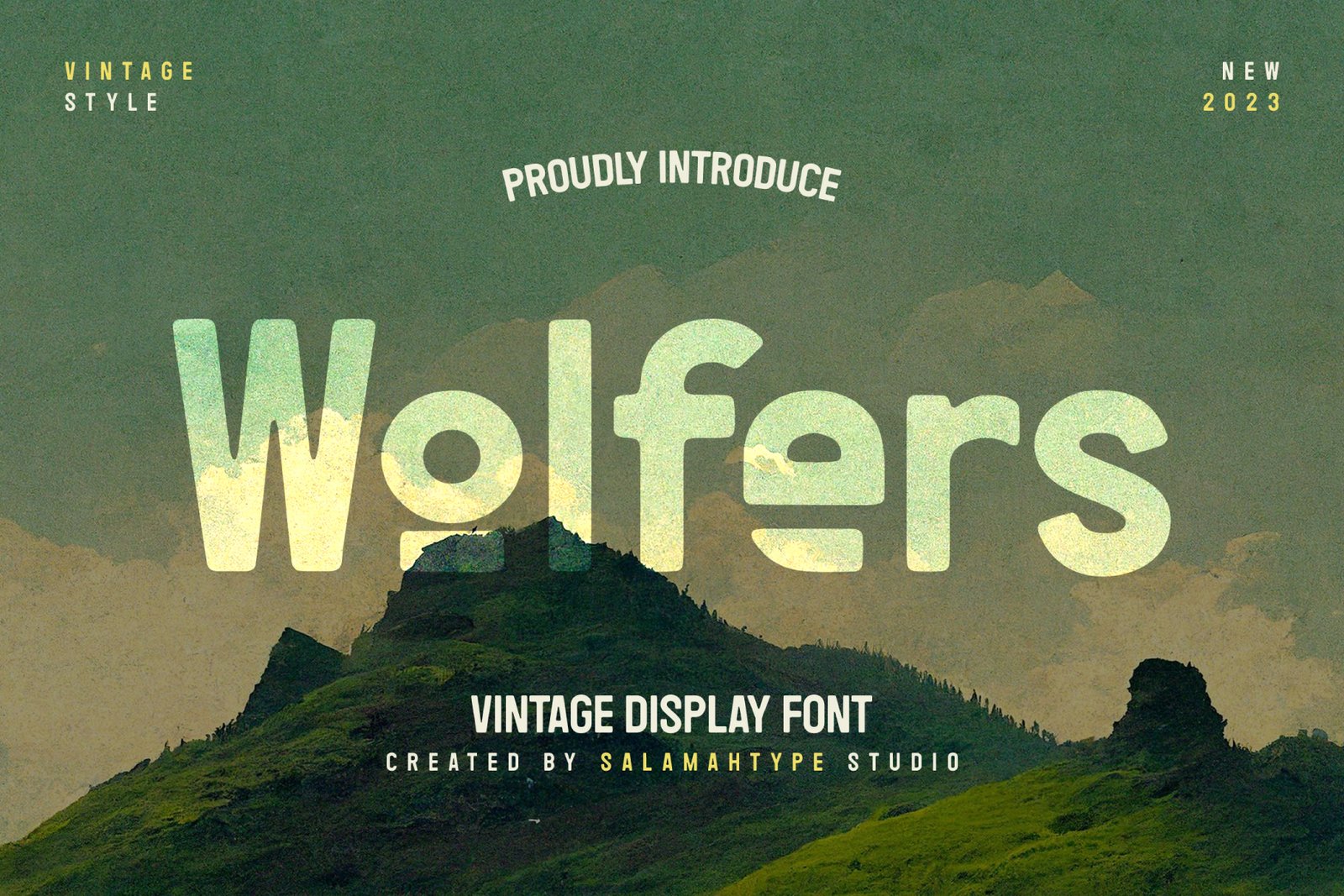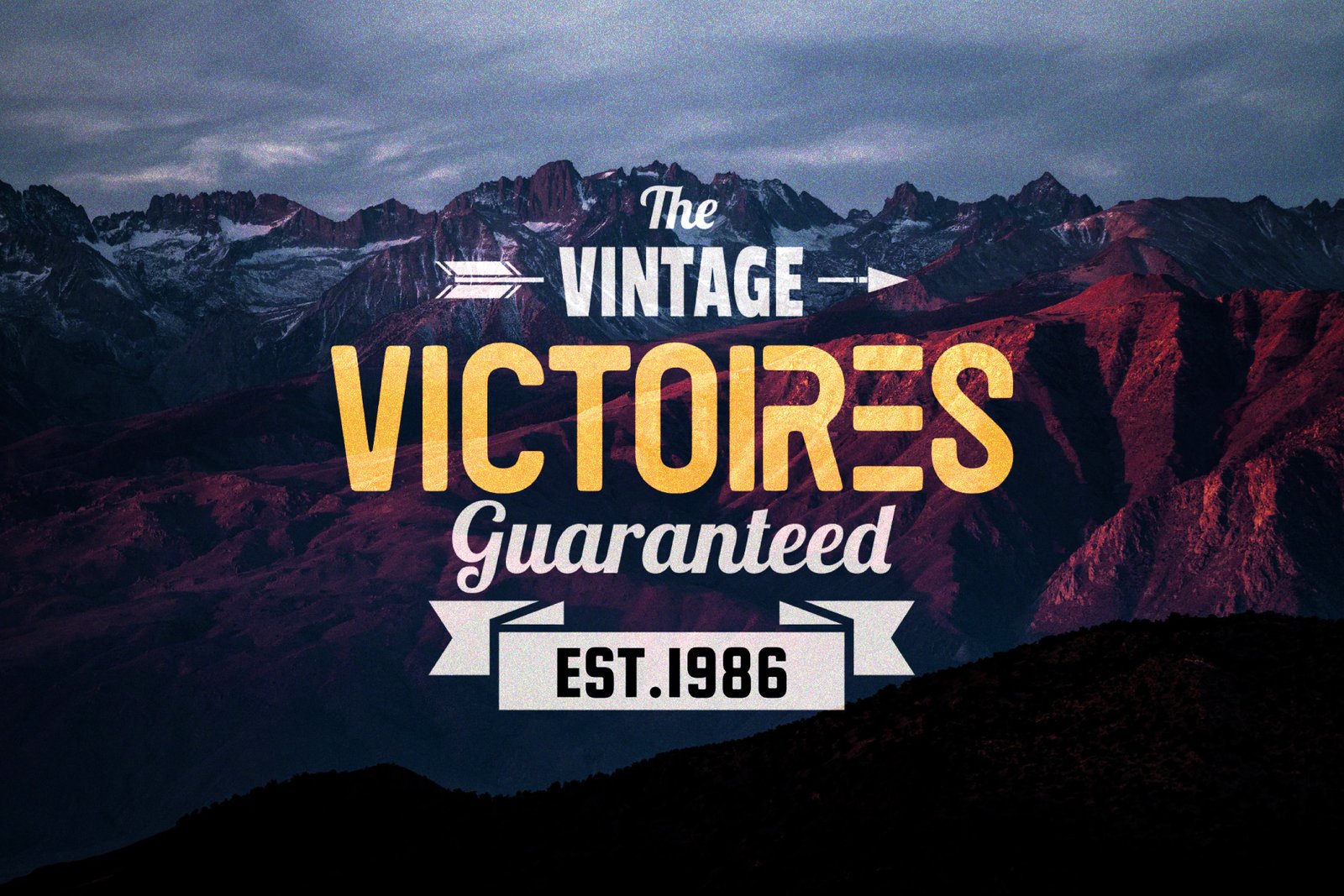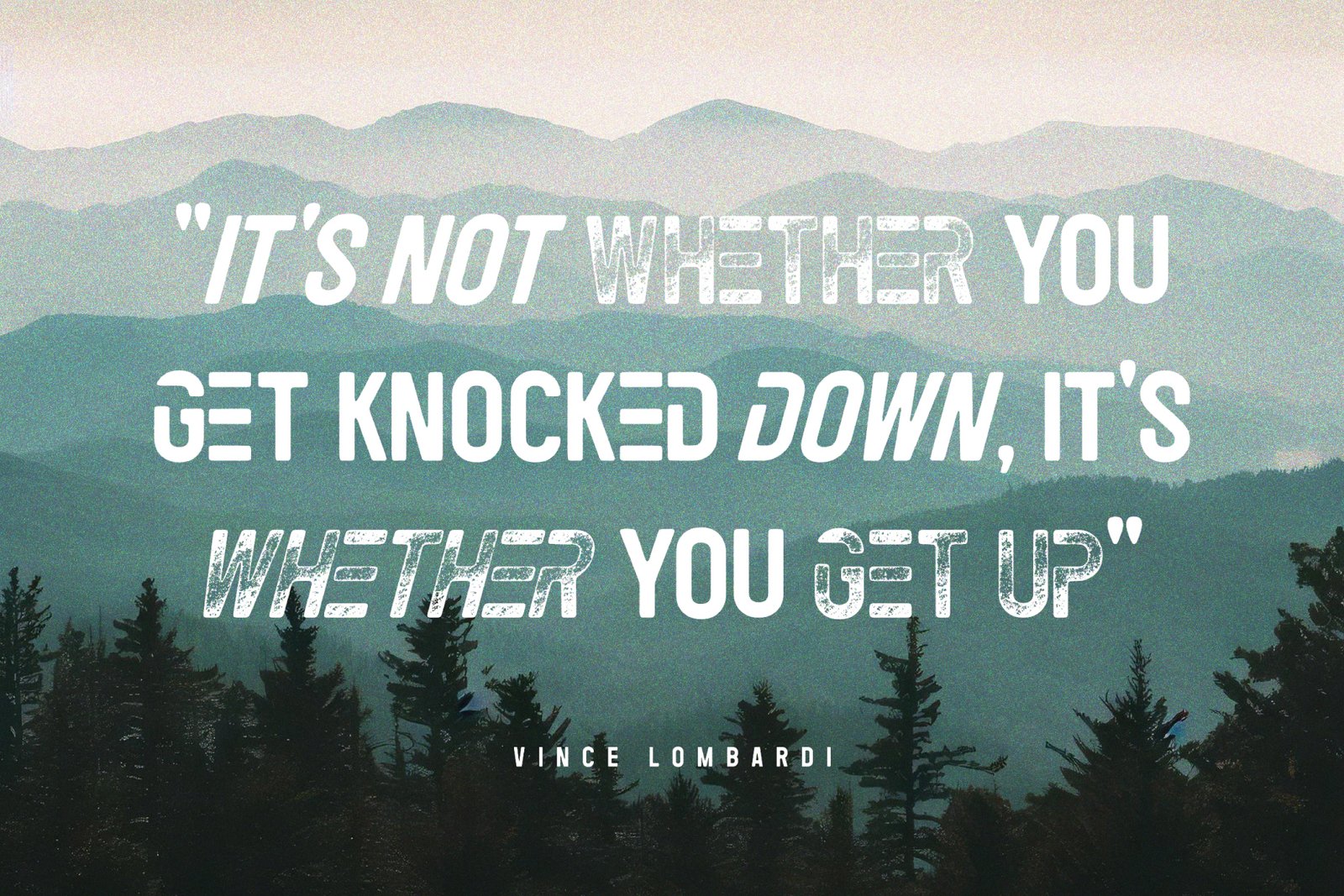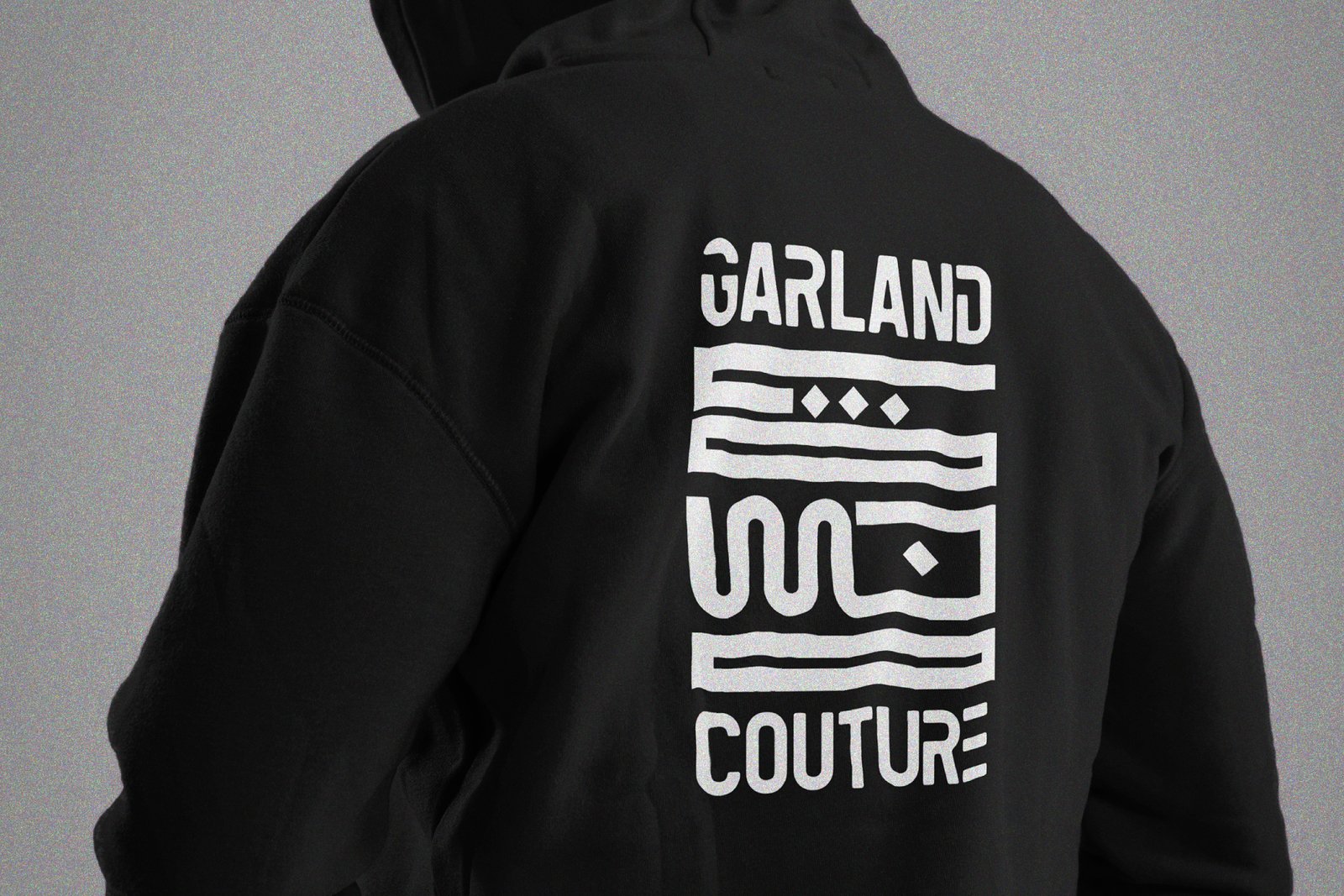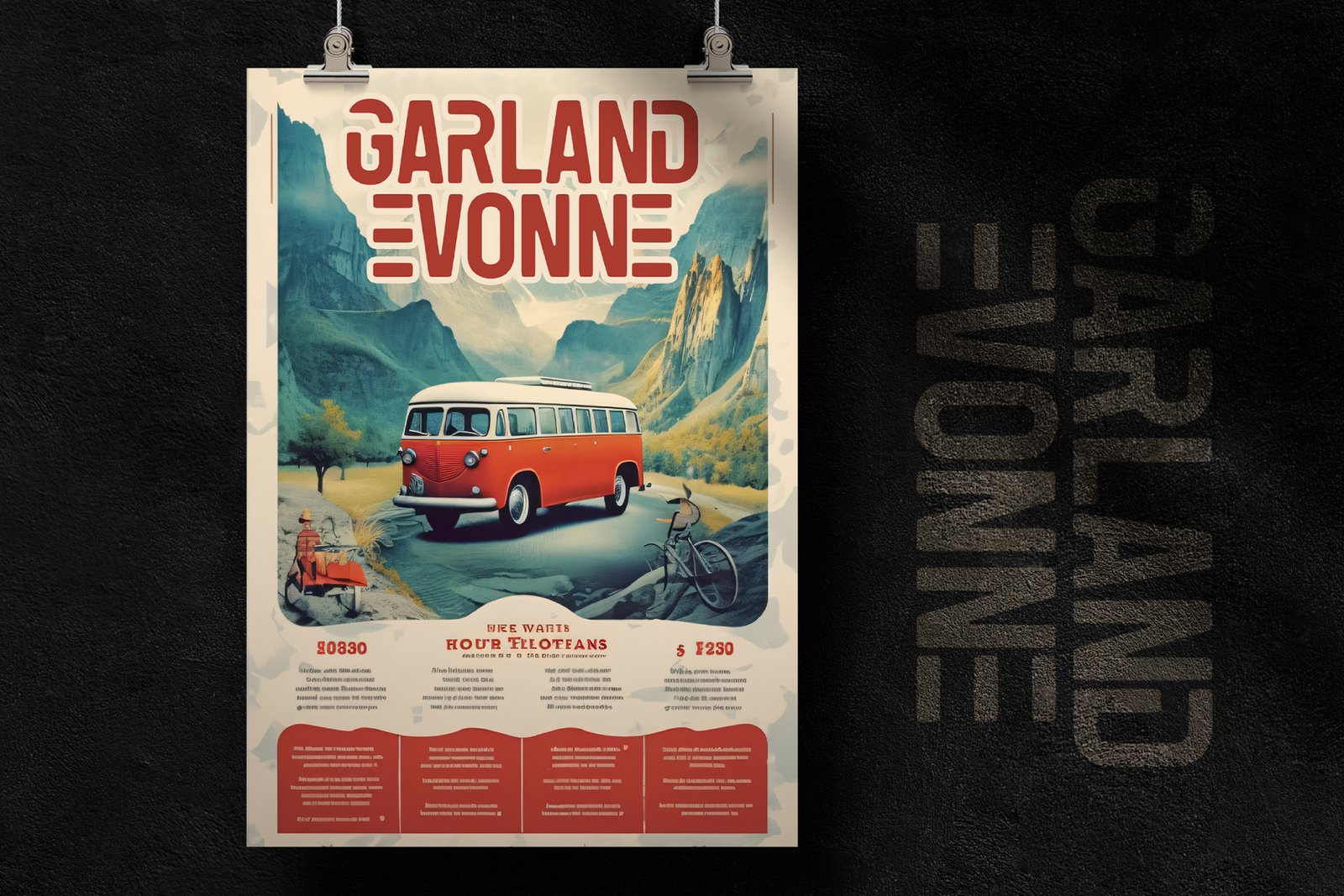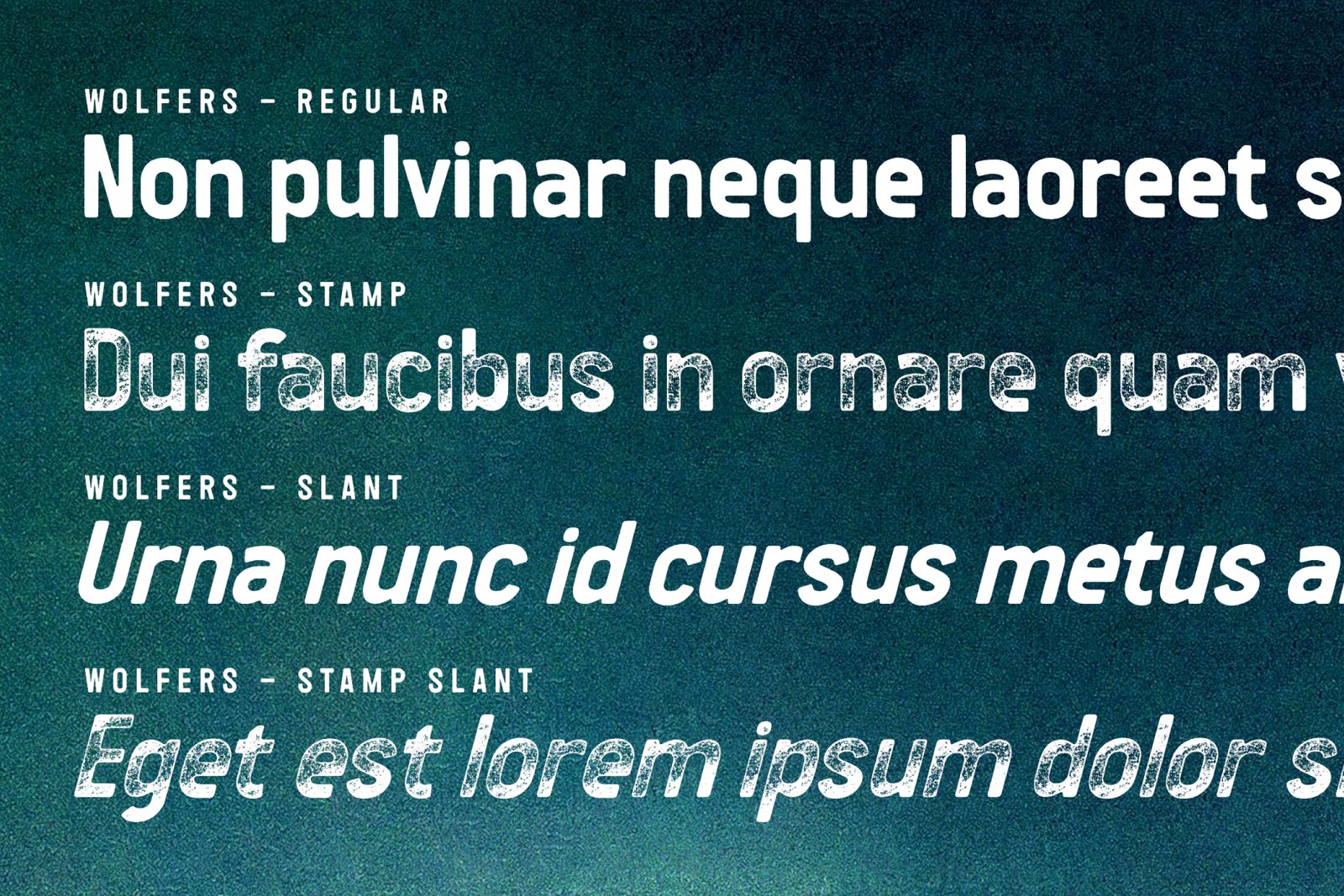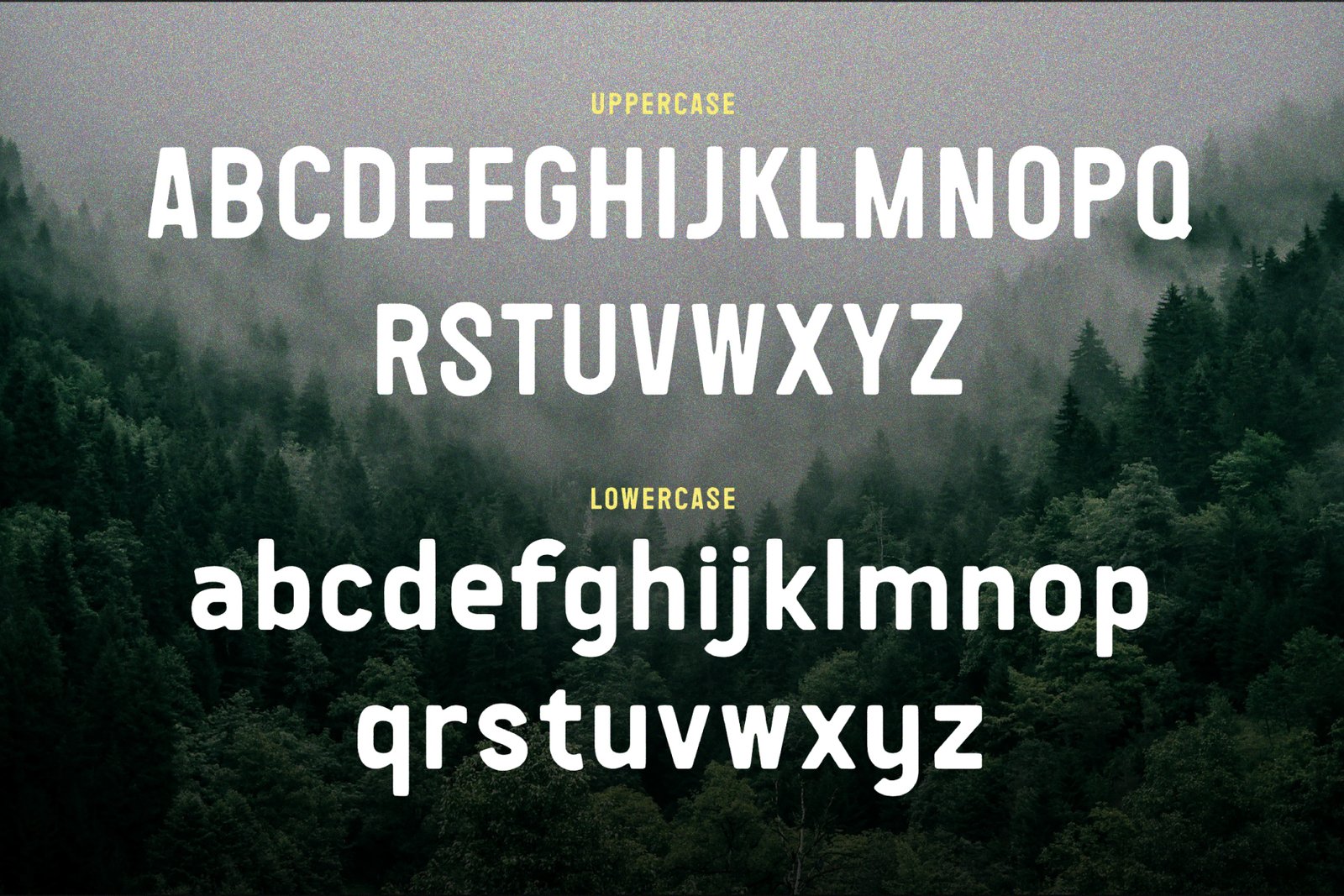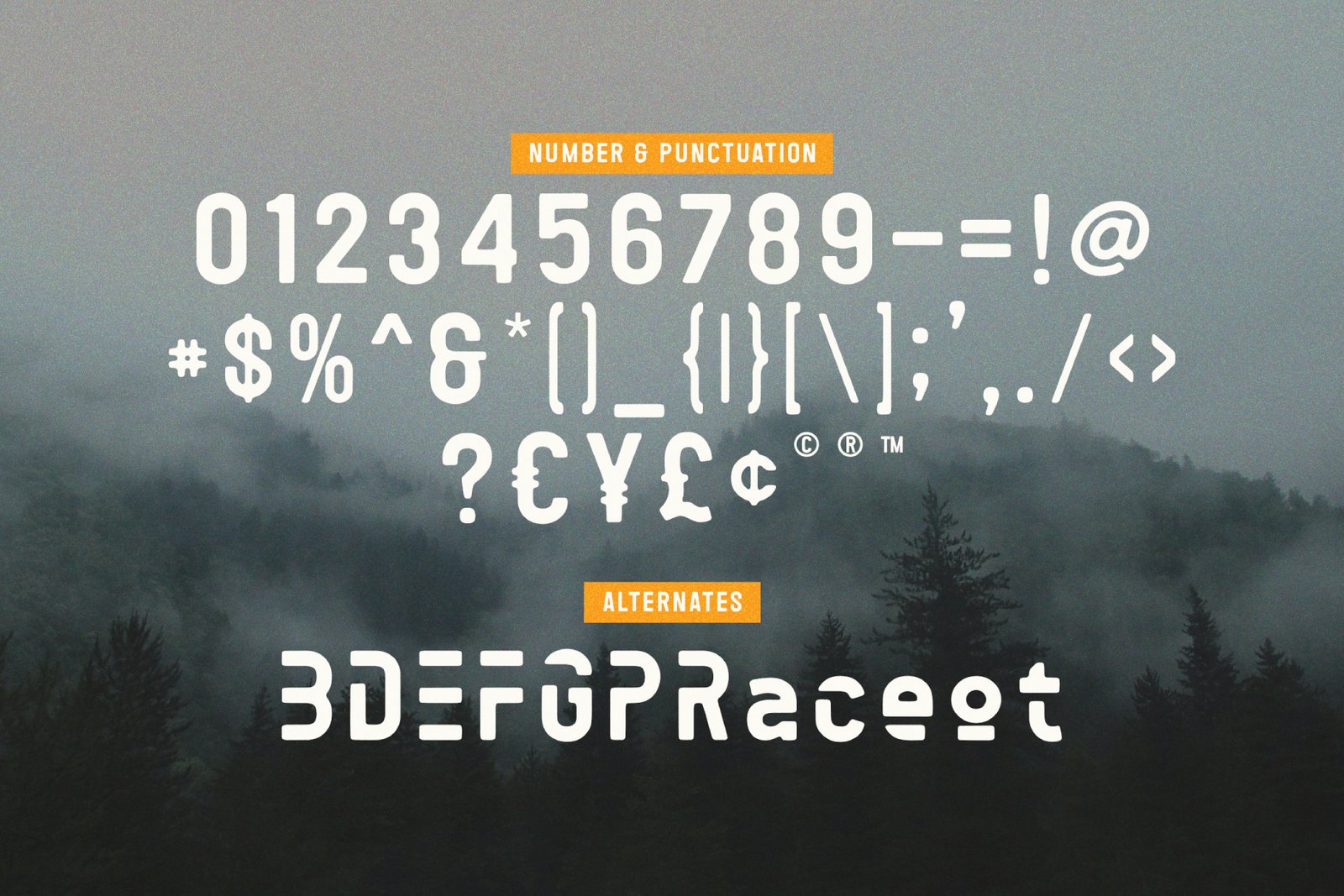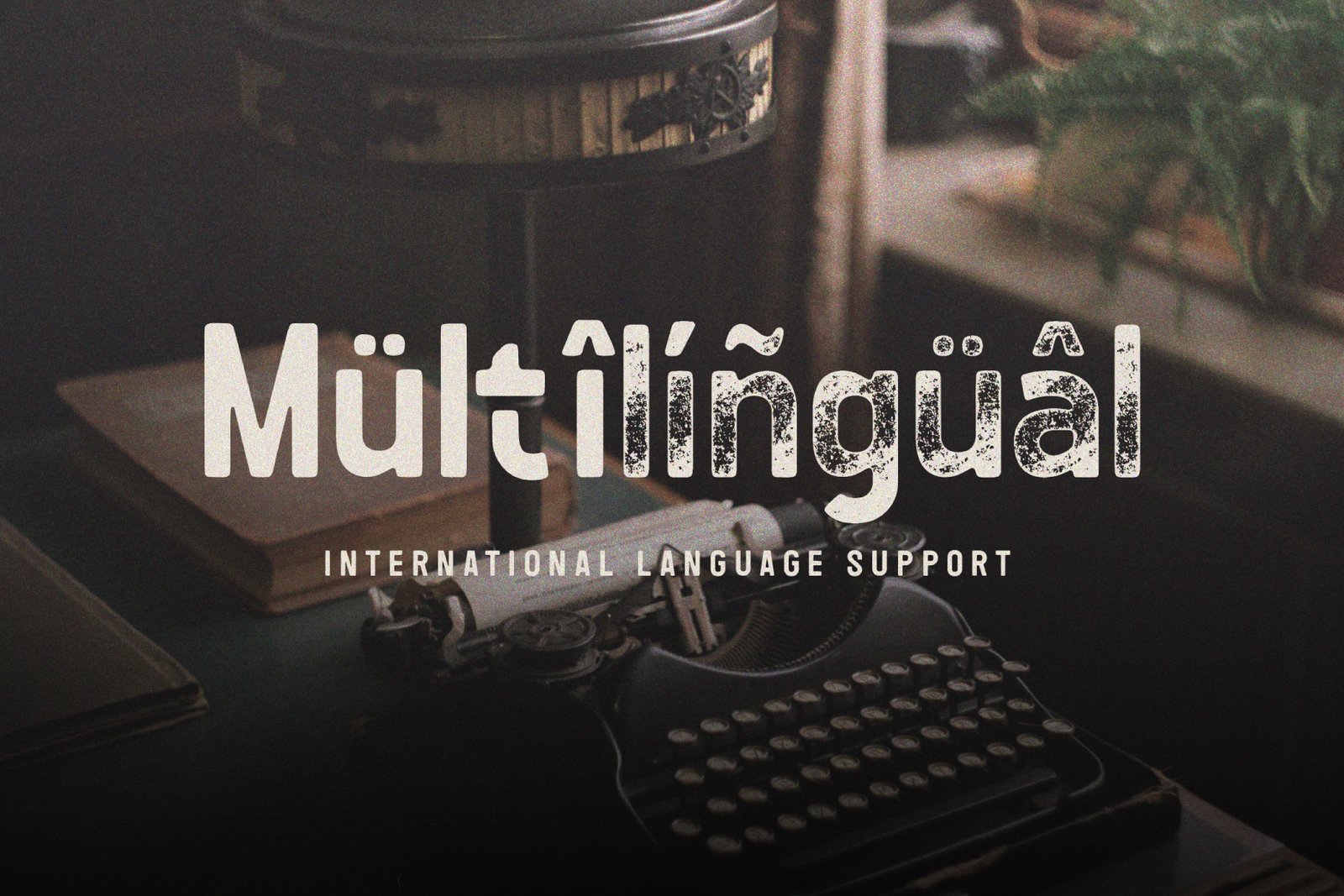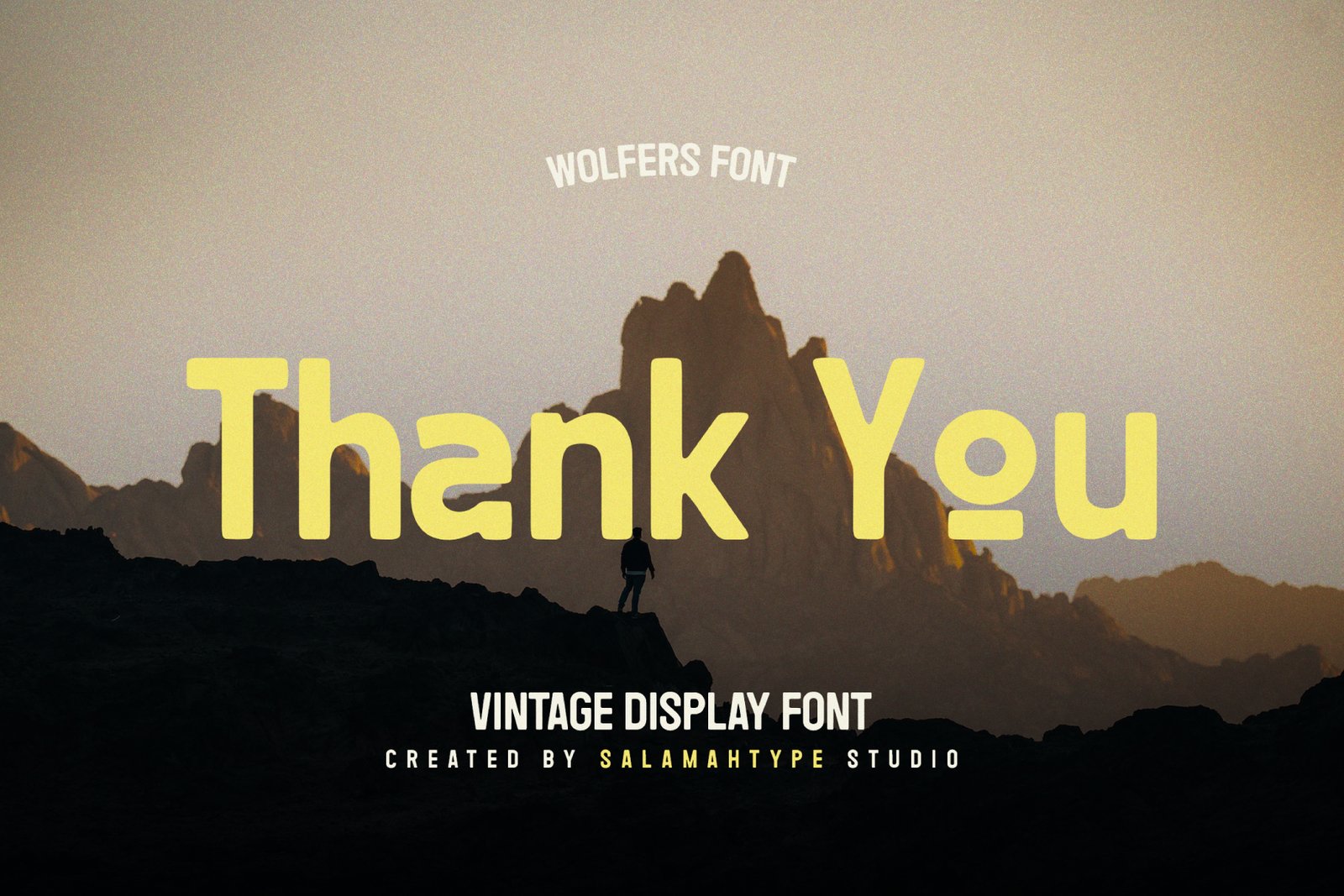
- Wolfers – Vintage Logo Font
Wolfers is a great vintage-looking font for your brand logo or any other type of creative project that requires a vintage or classic look like magazines, banners, headlines, or other corporate graphic design needs.
– 6 Font styles
– Uppercase and lowercase
– Alternate characters
– Regular and Stamp or grunge style
– Symbol and punctuation
– Multilingual support